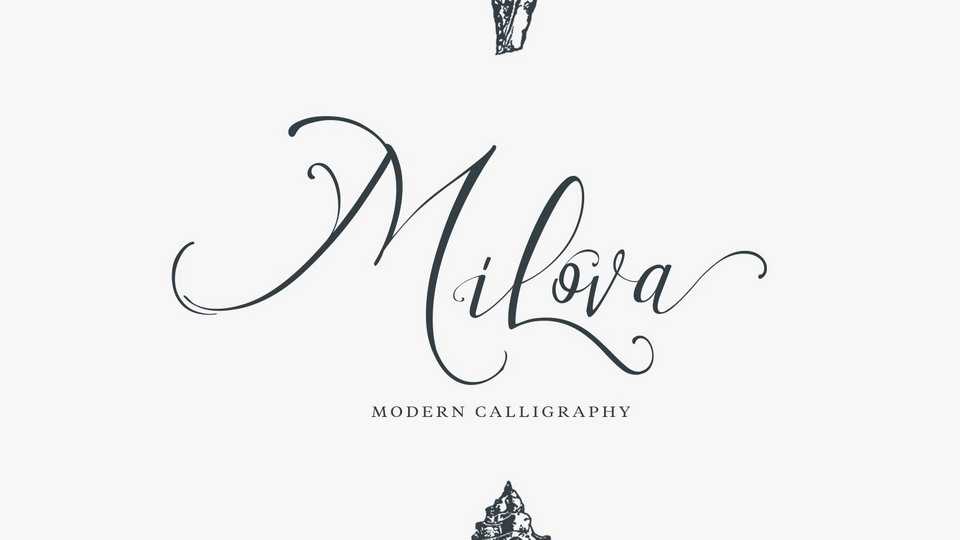
Download Milova font, an amazing unique calligraphy script with flexible lines that creates a natural impression styles on your design. It comes with more than 280 Glyphs including alternates on each characters, arrange a beautiful font for wedding invitation card, book cover, logo, and more..